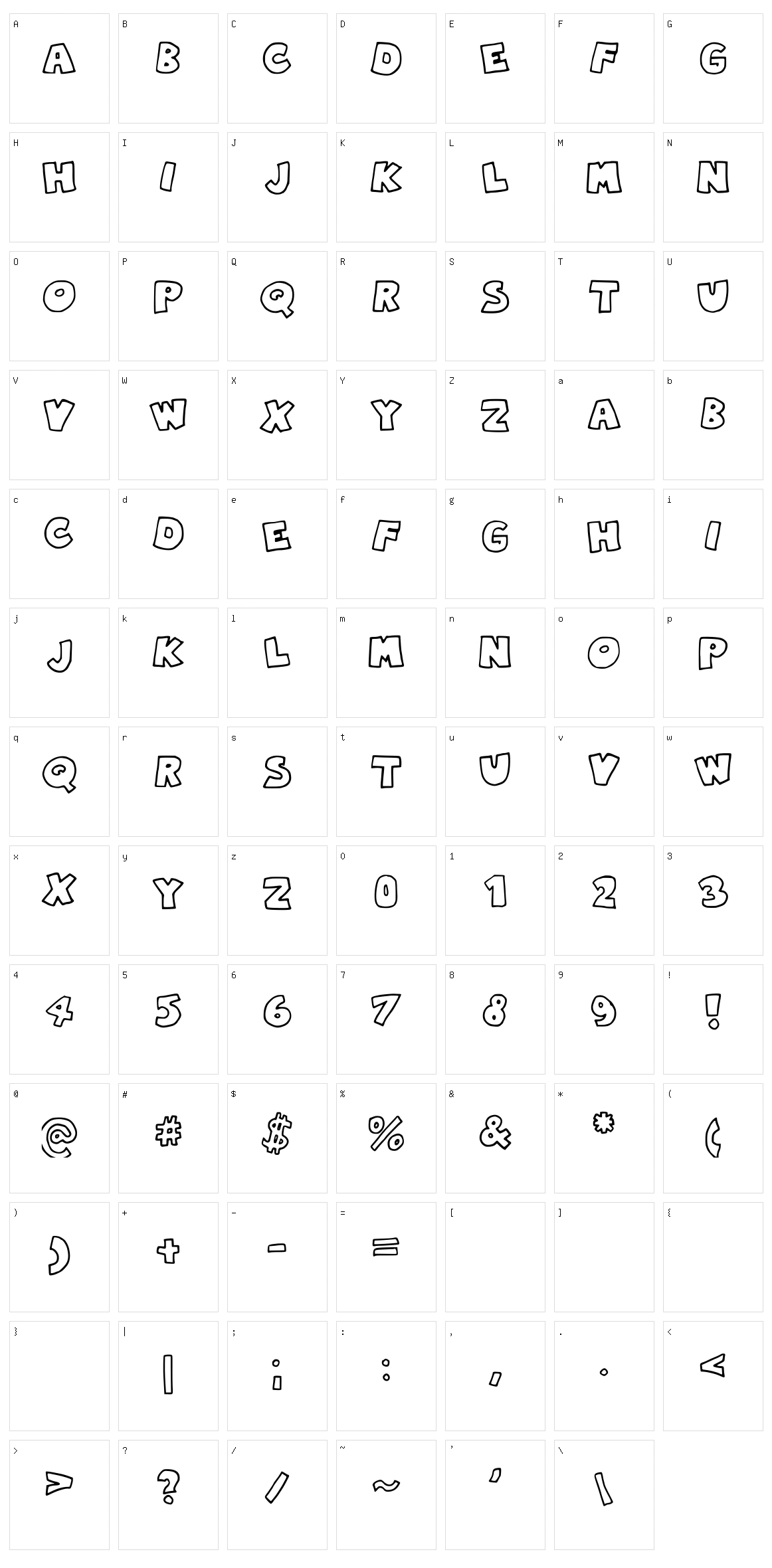
The free font Robin Graffiti is carefully designed by Borka Szabo, showcasing a thoughtful balance of creativity and usability and falls under the Cartoon font style. When you download the ZIP file, it contains only 49.5 KB of font files, making it lightweight and quick to download. Please review the license details below to understand permitted usage and distribution rights. If license information is not available, we recommend using this font for personal projects only or contacting the author directly for commercial usage permissions.